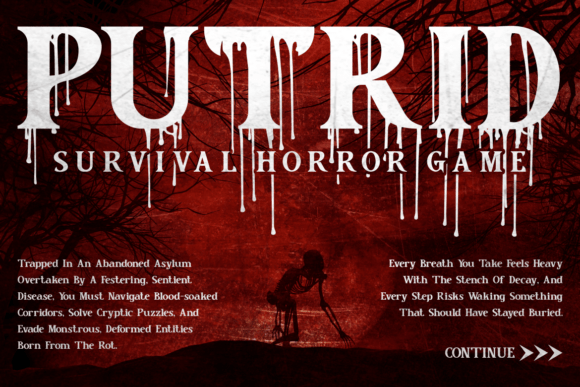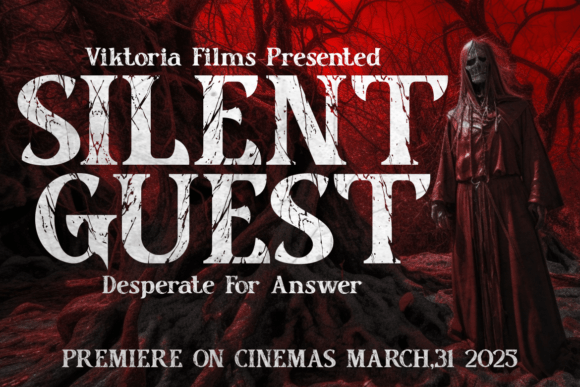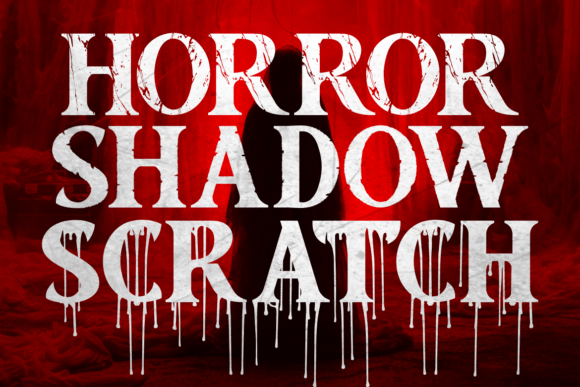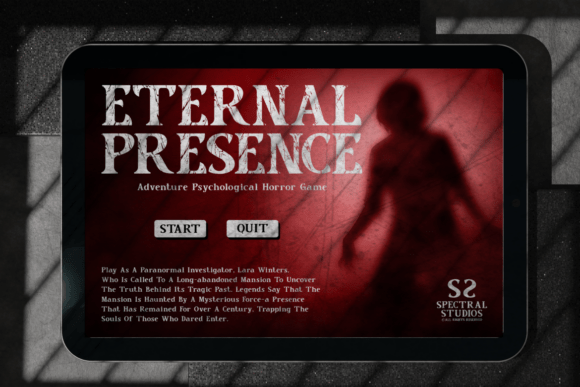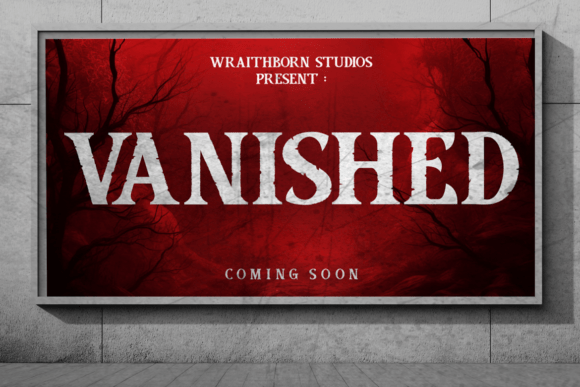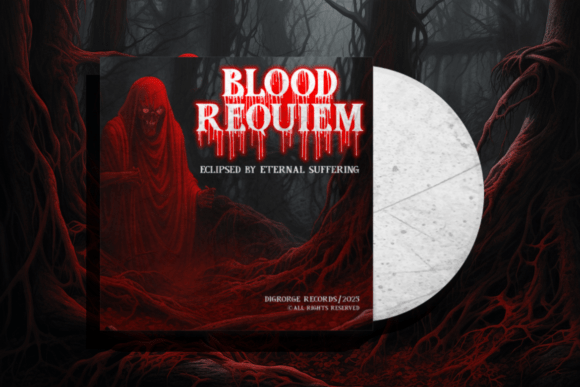
Crimson Horror Font: Unleash the Terror in Your Designs
Are you looking for a font that can add a touch of horror to your designs? Look no further than the Crimson Horror Font. This terrifyingly bold serif horror font is crafted to dominate horror-themed visuals with unsettling charisma, making it perfect for designers and crafters who want to create chilling and eerie content.
Design and Features
The Crimson Horror Font is designed with razor-sharp edges, irregular contouring, and eerie texture distress, which channels vintage horror aesthetics with a contemporary twist. The font’s unique design elements are carefully crafted to evoke a sense of fear and unease, making it ideal for horror-themed projects. The font is packaged in four styles, allowing for creative flexibility across formats like screen titles, packaging labels, or chilling magazine layouts.
Unsettling Charisma and Legibility
One of the standout features of the Crimson Horror Font is its ability to maintain legibility even with high-impact stylization. This enhances its usability across various digital and print applications, making it perfect for designers who want to create bold and eye-catching content. Whether used on a blood-drenched video game menu or a gothic cinematic poster, Crimson Horror will immediately draw attention and leave a lasting impression.
Perfect for Horror-Themed Projects
The Crimson Horror Font is perfect for designers and crafters who want to create horror-themed content, such as:
- Video game menus and titles
- Gothic cinematic posters and movie trailers
- Chilling magazine layouts and covers
- Packaging labels for horror-themed products
- Screen titles and subtitles for horror movies and TV shows
Why Choose Crimson Horror Font?
There are many reasons why designers and crafters should choose the Crimson Horror Font for their horror-themed projects. Here are a few:
- Unique Design: The Crimson Horror Font has a unique design that sets it apart from other horror fonts. Its razor-sharp edges, irregular contouring, and eerie texture distress make it perfect for creating chilling and eerie content.
- Creative Flexibility: The font is packaged in four styles, allowing for creative flexibility across formats and projects.
- Legibility: The font maintains legibility even with high-impact stylization, making it perfect for use across various digital and print applications.
- Attention-Grabbing: The Crimson Horror Font is designed to grab attention and leave a lasting impression, making it perfect for horror-themed projects.
Tips for Using Crimson Horror Font
Here are a few tips for using the Crimson Horror Font in your designs:
- Experiment with Different Styles: The font is packaged in four styles, so experiment with different styles to find the one that works best for your project.
- Use High-Impact Stylization: Don’t be afraid to use high-impact stylization techniques, such as bold colors and textures, to make your design stand out.
- Keep it Legible: While the font is designed to be bold and eye-catching, make sure to keep it legible, especially when using high-impact stylization techniques.
The Crimson Horror Font is a terrifyingly bold serif horror font that is perfect for designers and crafters who want to create chilling and eerie content. With its unique design, creative flexibility, and legibility, it’s ideal for horror-themed projects. Whether used on a blood-drenched video game menu or a gothic cinematic poster, Crimson Horror will immediately draw attention and leave a lasting impression. So why wait? Unleash the terror in your designs with the Crimson Horror Font.